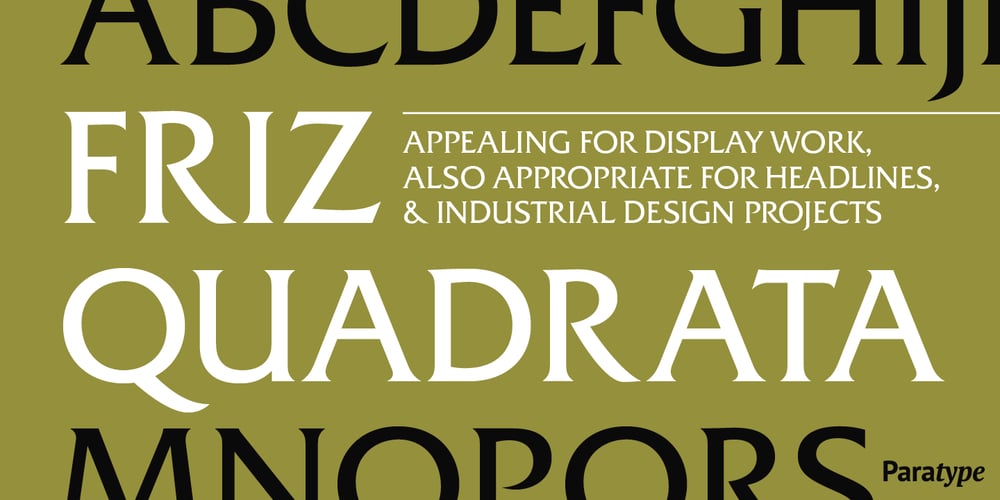
Friz Quadrata
Friz Quadrata font
Friz Quadrata Font Family was designed by Alexander Tarbeev and published by ParaType. Friz Quadrata contains 4 styles and family package options. Designed at Paratype in 1994 by Alexander Tarbeev. Based on informal handwriting. For use in advertising and display typography.